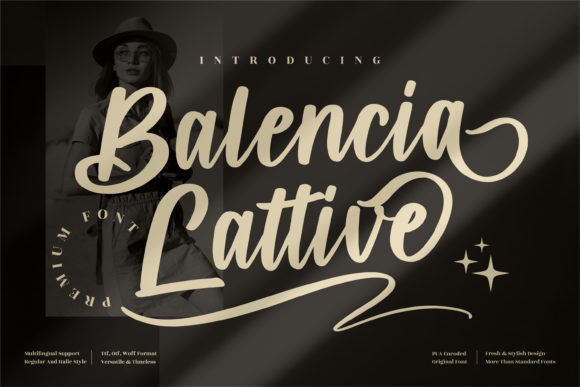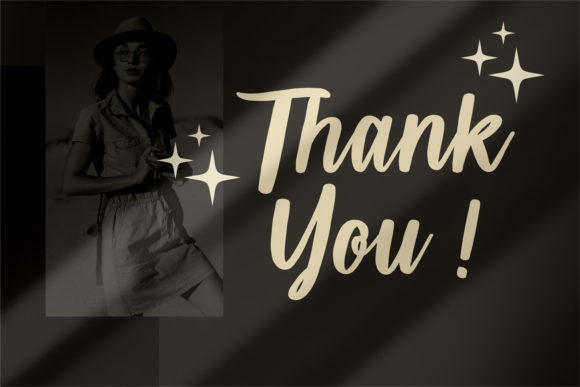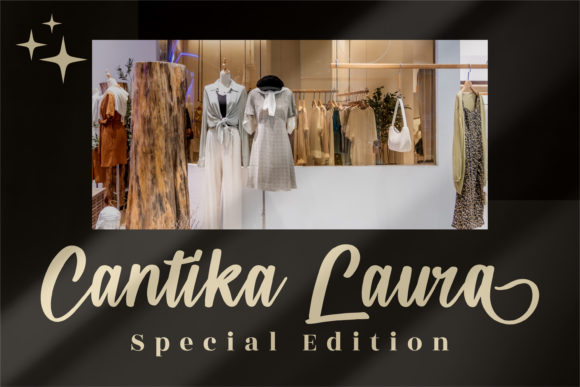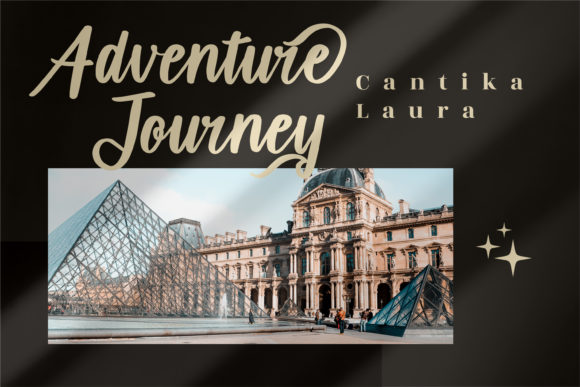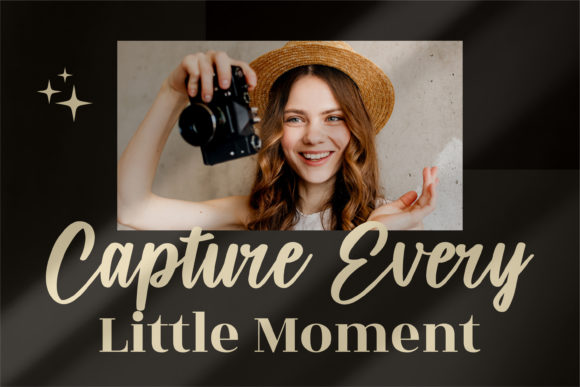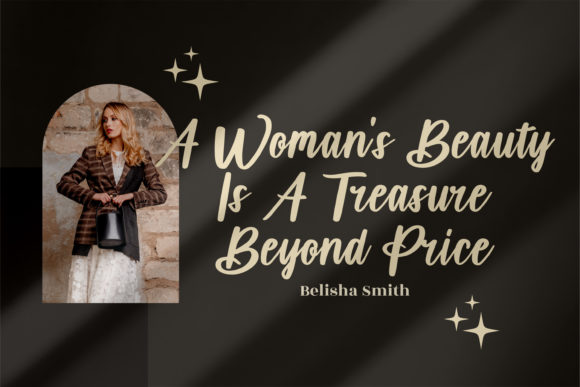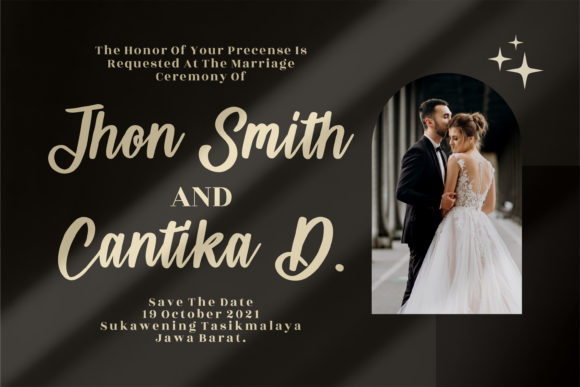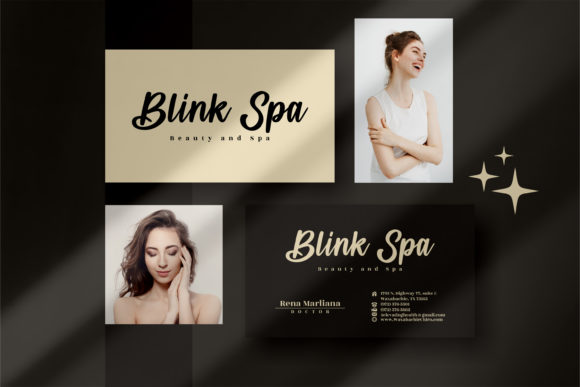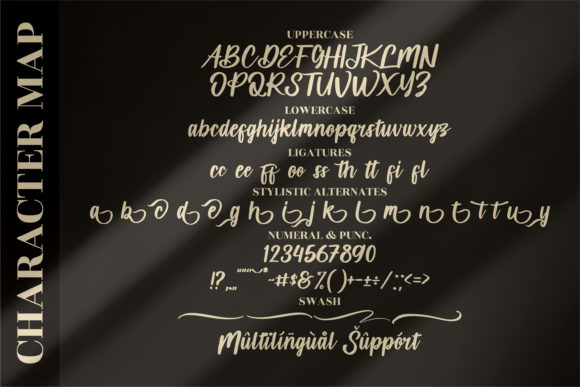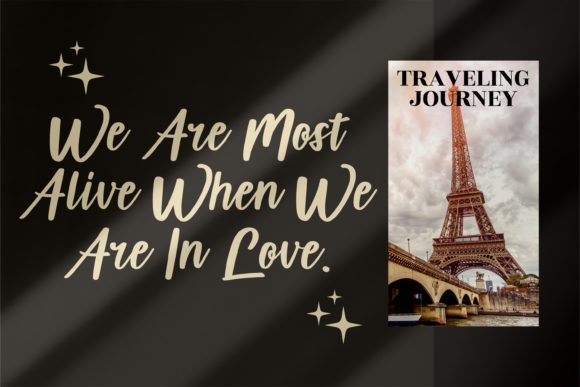
Balencia Lattive Font
About Balencia Lattive Font
Balencia Lattive is a luxurious handwritten font that can elevate the look of any creation! Use it for your most exquisite projects, and notice how it makes them come alive!